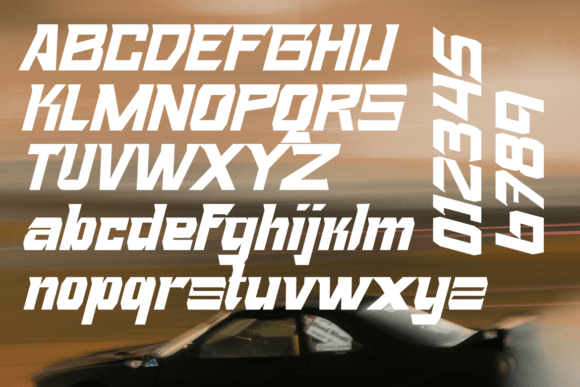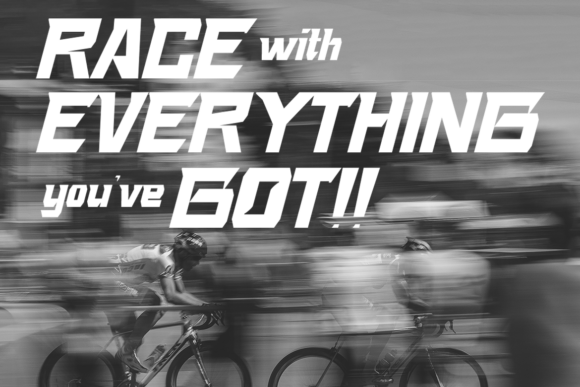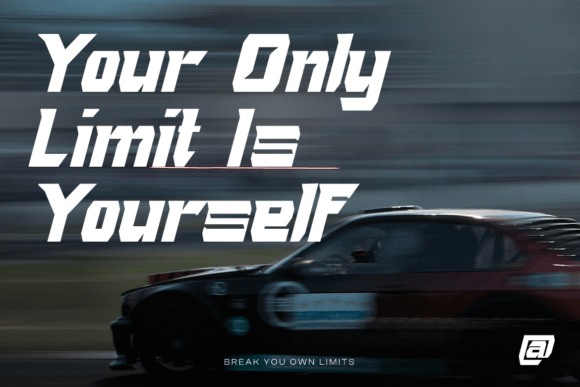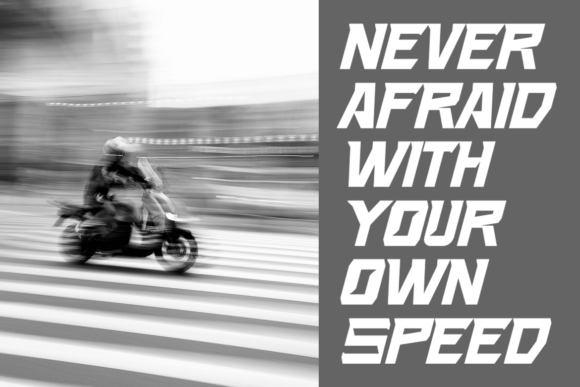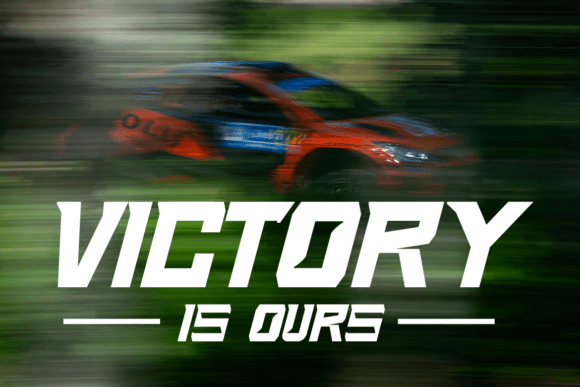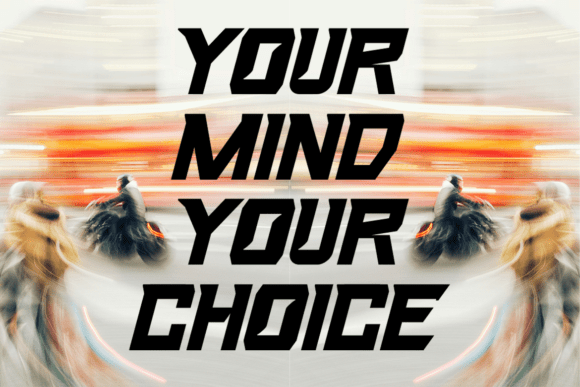
Introduction to Milastava Font
You know that moment when you’re working on a creative project, and you need the perfect font to convey the energy and excitement of your design? I’m sure you’ve experienced it – that spark of inspiration that propels your project forward and makes it truly special. For designers looking to add a dynamic touch to their work, I’d like to introduce you to the Milastava Font, a high-quality display font that embodies the thrill of motorsport and the rush of speed.
With its sharp angles, slanted letterforms, and strong geometric construction, the Milastava Font is a game-changer for designers seeking to create eye-catching visuals. Whether you’re working on a poster, event graphics, or digital layouts, this font is sure to leave a lasting impression. Plus, with its transparent background, you can easily place it over any design element, making it a versatile design resource that’s sure to come in handy.
Key Features of Milastava Font
- High-quality font design for creative projects, suitable for a variety of design needs.
- Unique and elegant design style, making it a standout choice for creative projects requiring a high level of sophistication.
Honest Review: Milastava Font
I recently had the opportunity to work with the Milastava Font, and I must say it’s been a game-changer for my creative project. The font’s high quality is immediately apparent, with crisp lines and smooth curves that make it perfect for any design resource.
One of the standout features of the Milastava Font is its transparent background, which makes it incredibly versatile and easy to use. Whether you’re working on a graphic design project or creating a digital asset, this font is a great choice.
- Only available in a few font weights, which may limit its use in certain situations ⚠️
- Not suitable for complex typography or intricate designs ⚠️
Overall, I’m thoroughly impressed with the Milastava Font and would highly recommend it to anyone looking for a reliable and high-quality design resource. ✨”
The Milastava Font is commonly used in various design projects such as logos, business cards, brochures, and social media graphics. Its high quality and transparent background make it a great choice for designers who want to create professional-looking designs without the hassle of complicated design elements.